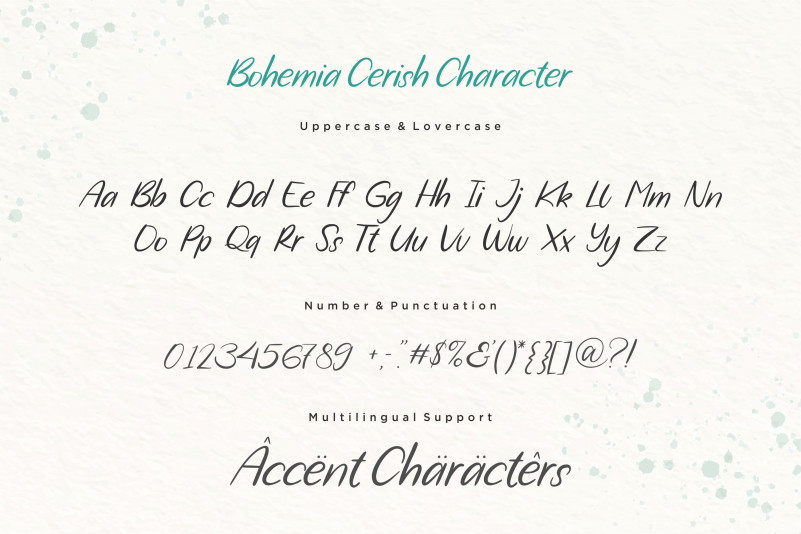
Bohemia Cerish Font
Bohemia Cerish Script Font
It’s can be used for wide ranges of application, such as wedding design, branding project, logo, poster, name card, invitations, social media posts, and others.